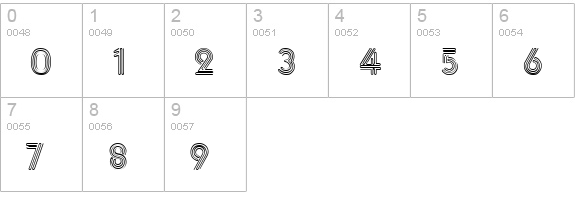
Spotlight Font Details
Spotlight font is a modern and stylish typeface that is sure to grab attention with its elegant and eye-catching design. This versatile font features clean lines and a bold yet sophisticated look, making it perfect for a wide range of design projects. Whether you're creating a logo, poster, or website, Spotlight font will add a touch of professionalism and flair to your work. Best of all, Spotlight font is available for free download at FontsMarket.com. Simply visit the website to access this amazing font and start using it in your projects today. Don't miss out on the opportunity to enhance your designs with the stunning Spotlight font – download it now and let your creativity shine!